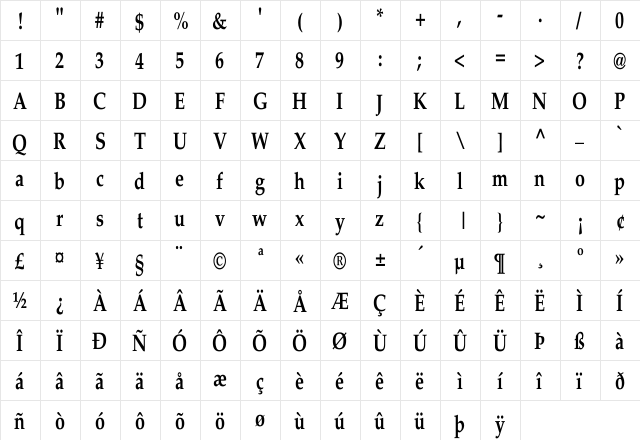
Palatino-Bold Cn Regular
Design Context for Palatino-Bold Cn Typeface
Palatino-Bold Cn is a composed and adaptable typeface that performs quietly and consistently across a wide range of design contexts. Its bold stroke weight gives it real presence on the page.
Pro Tip: Pair Palatino-Bold Cn with a font of contrasting weight or personality to build a more expressive typographic hierarchy.